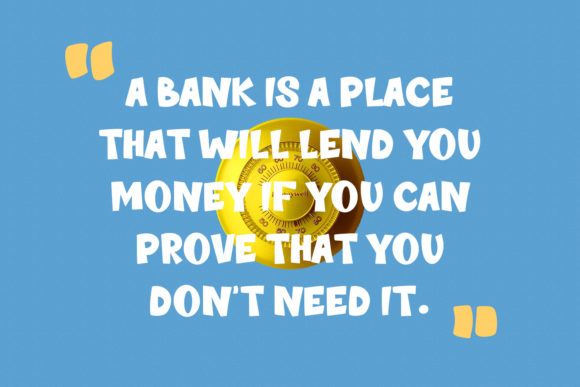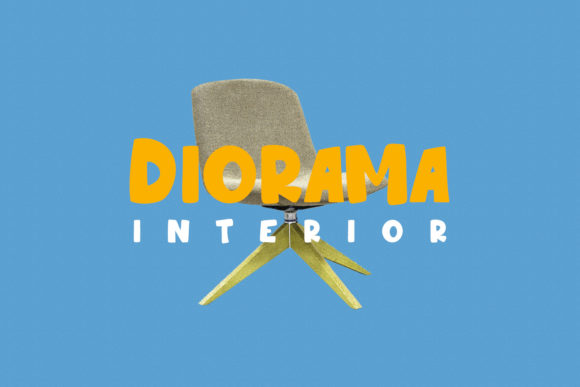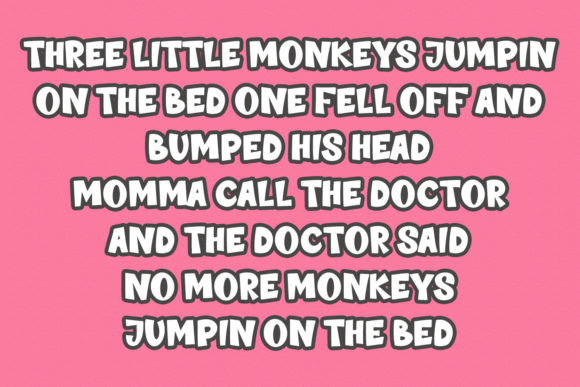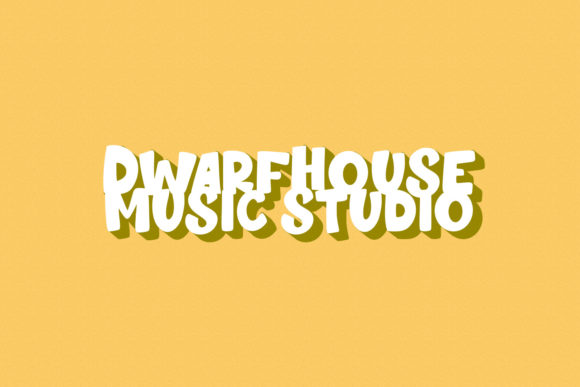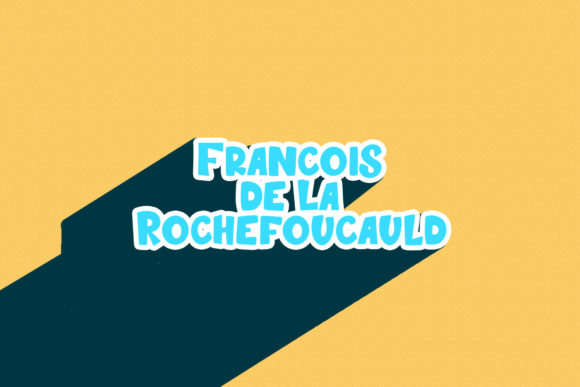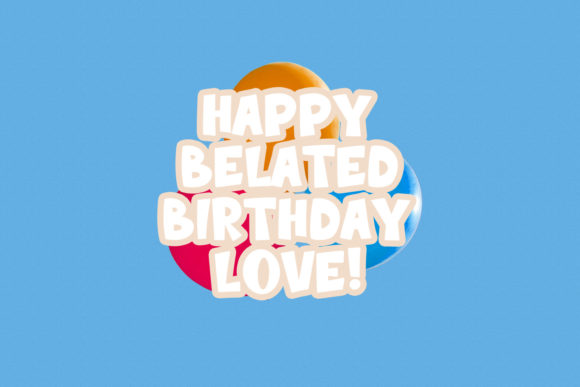
Introduction to Noobys Font
Have you ever found yourself staring at a blank canvas, wondering which font to choose for your next creative project? You’ve searched through countless options, but nothing seems to capture the essence of your design. That’s where Noobys Font comes in – a charming display font that will bring a smile to your face and a touch of whimsy to your work.
Noobys Font is more than just a design resource; it’s a game-changer for designers looking to add a personal touch to their projects. With its transparent background and high-quality design, this font is perfect for adding a pop of color and personality to your work. Whether you’re working on a graphic design project or creating a digital illustration, Noobys Font is sure to elevate your design and leave a lasting impression.
Key Features of Noobys Font
- Noobys Font features a transparent background, allowing for easy layering and customization in design projects.
- This unique font is designed to provide a modern and sleek aesthetic, making it an ideal design resource for creative professionals.
- Noobys Font is fully editable, allowing designers to customize and personalize the font to suit their specific design requirements.
Honest Review: Noobys Font
Noobys Font is a creative project that caught my attention, and I’m excited to share my honest review with you. As a designer, I’m always on the lookout for high-quality design resources that can elevate my projects.
- ✨ Unique and quirky design aesthetic that adds a touch of personality to any project
- ✨ High quality and crisp typography that makes it perfect for digital use
- ✨ Transparent background option that allows for seamless integration with any design
- ⚠️ Limited character set, which may not be suitable for complex or lengthy text-based projects
- ⚠️ Not ideal for print use due to its digital design origins
Overall, I’m impressed with Noobys Font and its potential to add a creative spark to any design project. While it may have some limitations, its unique design and high quality make it a valuable resource for designers. If you’re looking for a fun and quirky font to add some personality to your projects, Noobys Font is definitely worth checking out.
Designing with Noobys Font
Noobys Font is a high-quality, free design resource perfect for any creative project. With a transparent background, this font is easily customizable and can be used in a variety of applications.
Tips for Getting the Most Out of Noobys Font
To get the most out of Noobys Font, experiment with different font sizes, colors, and combinations to create unique and eye-catching designs.
Common Use Cases for Noobys Font
Noobys Font is perfect for creating posters, flyers, business cards, and other marketing materials. Its high-quality design makes it ideal for any creative project.
Q: Does Noobys Font have a transparent background?
No, Noobys Font does not have a transparent background. However, designers can use the font in conjunction with other design elements, such as images or graphics, to create a seamless and professional design.
Q: What is the recommended font size for optimal readability with Noobys Font?
The recommended font size for optimal readability with Noobys Font is between 12 and 18 points. However, designers may need to adjust the font size based on the specific design requirements and the intended audience.